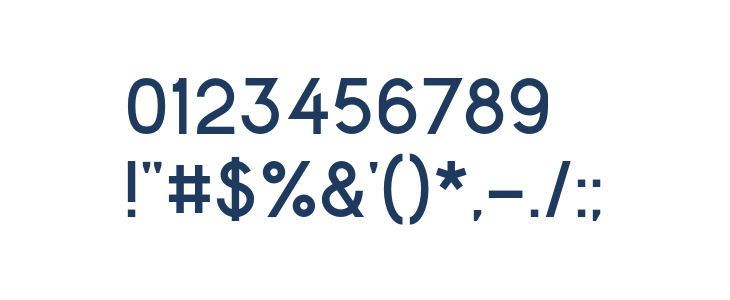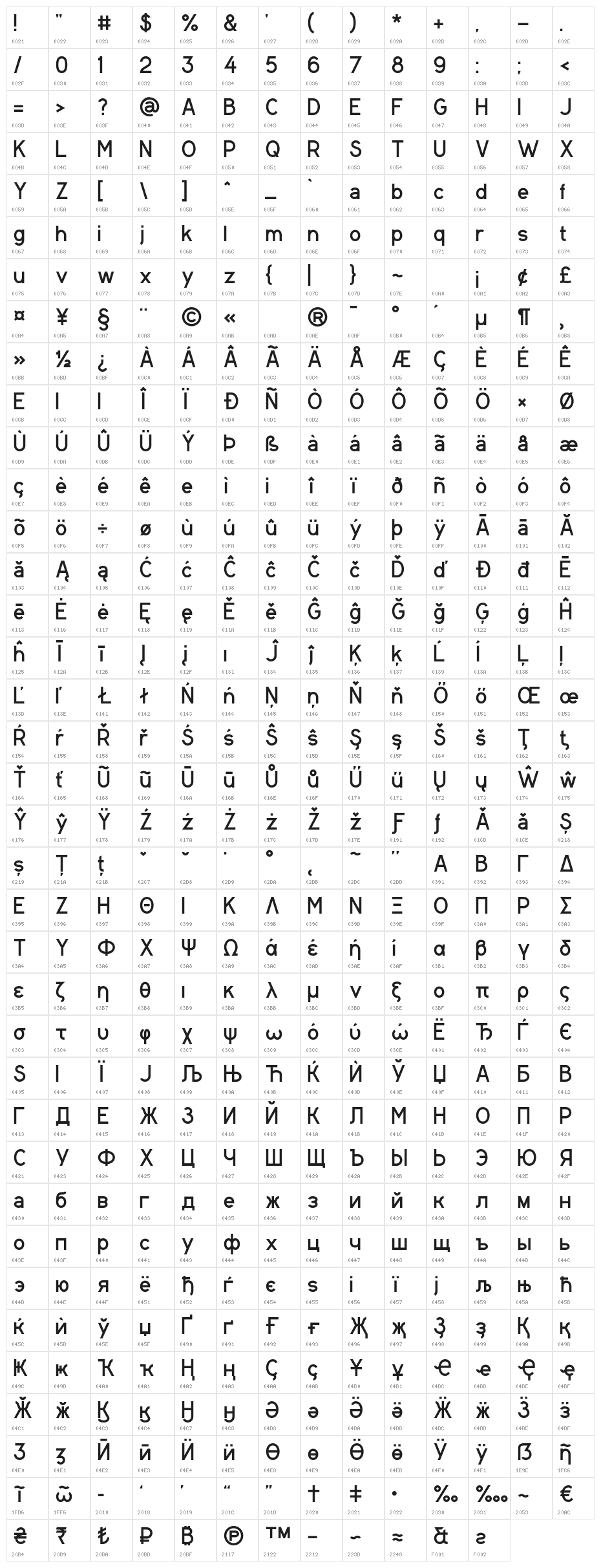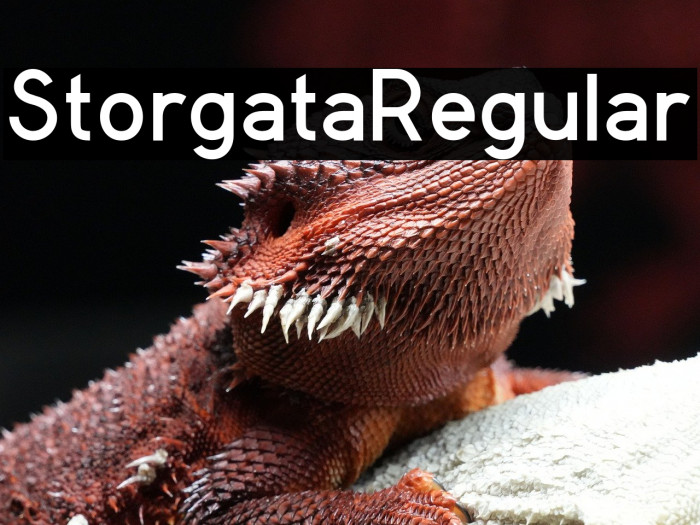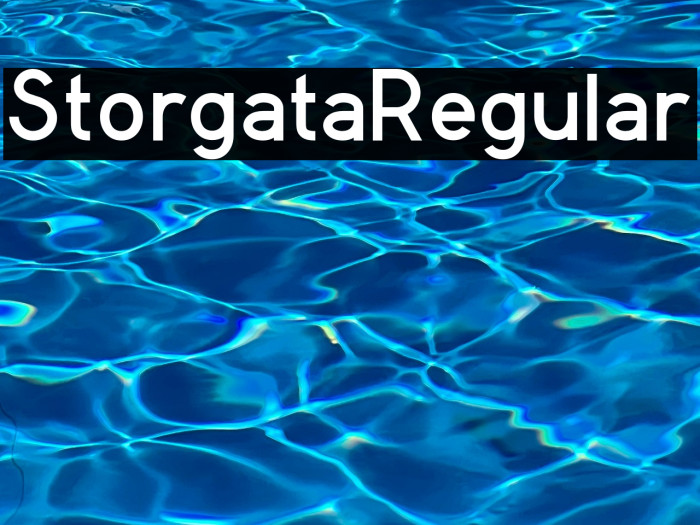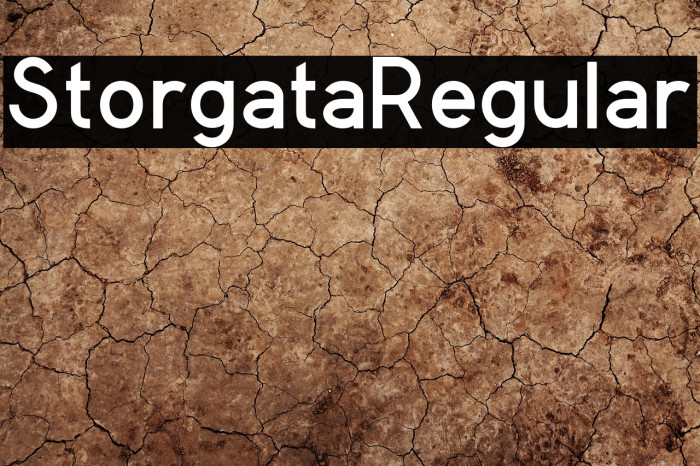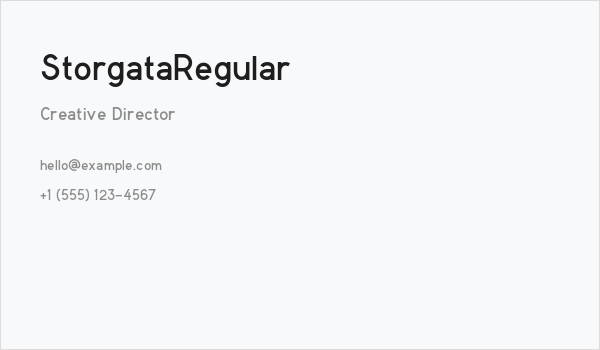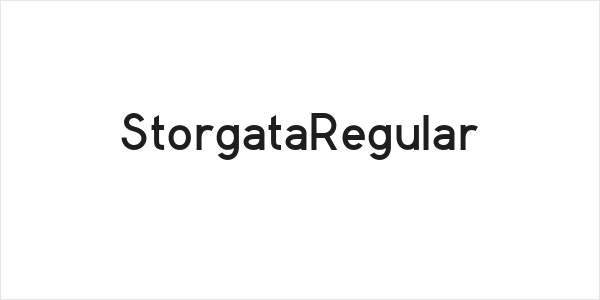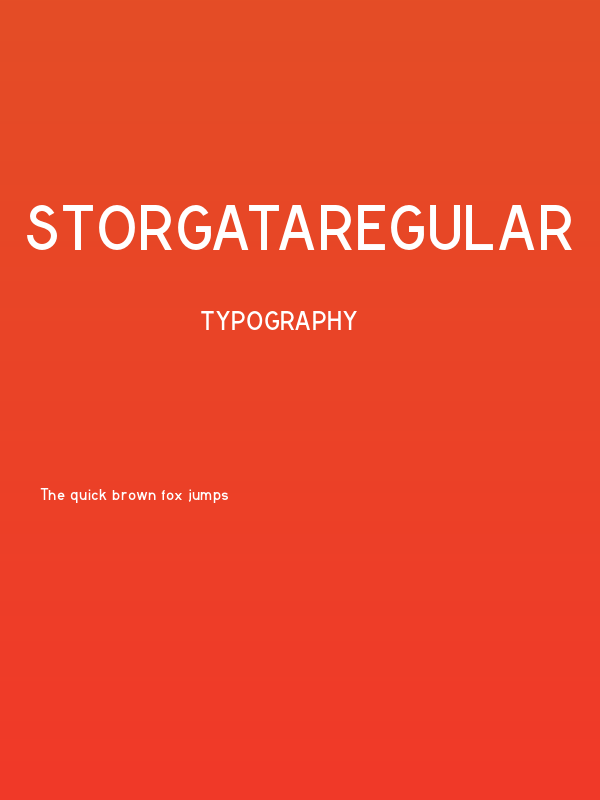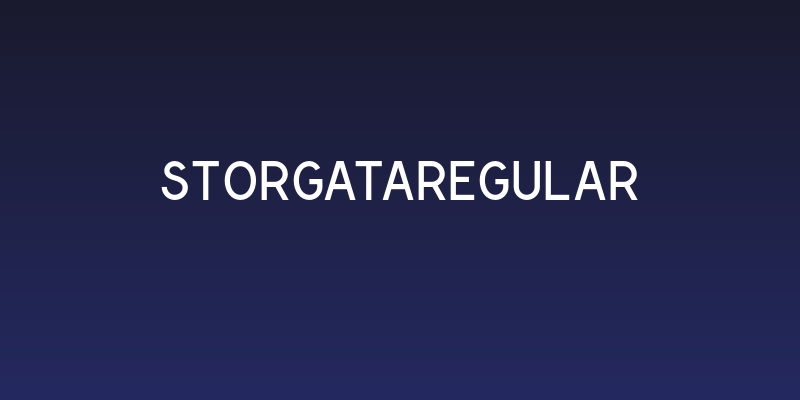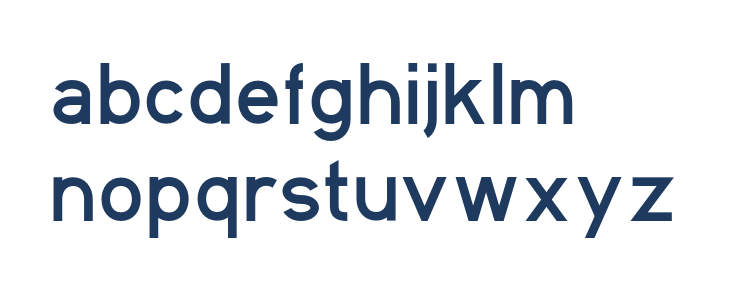
StorgataRegular Font
StorgataRegular Description
This typeface features a clean and modern sans-serif design, characterized by its geometric shapes and uniform stroke widths. The letters are well-proportioned, offering a harmonious balance between height and width, which enhances readability. The uppercase characters are bold and assertive, while the lowercase letters maintain a friendly and approachable appearance. The numerals are clear and distinct, making them suitable for data presentation. Special characters are designed with simplicity in mind, ensuring they complement the overall aesthetic without distraction. This font's simplicity and clarity make it versatile for various design applications.